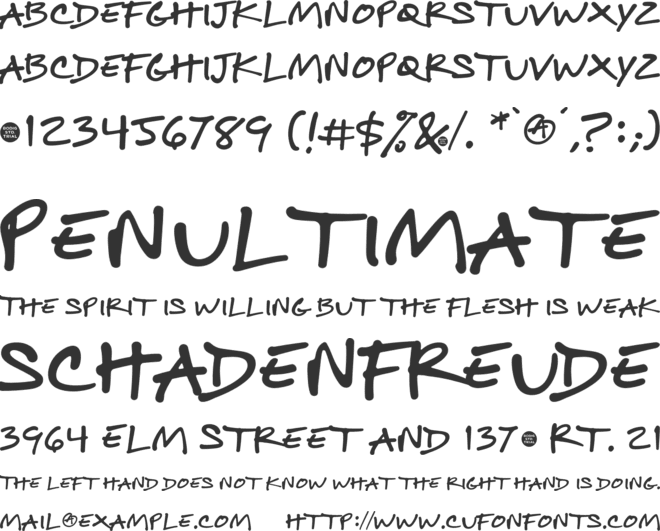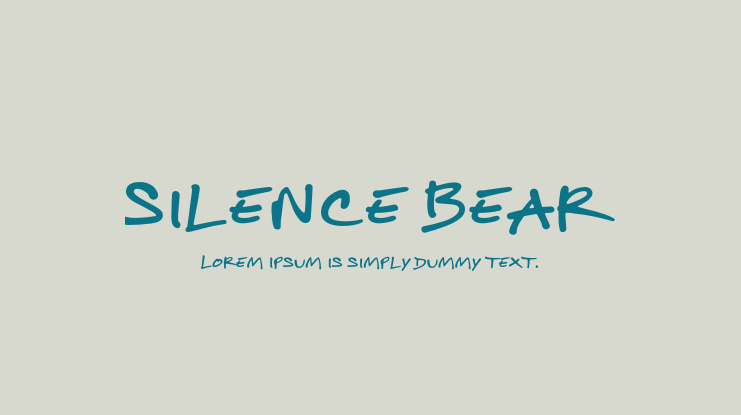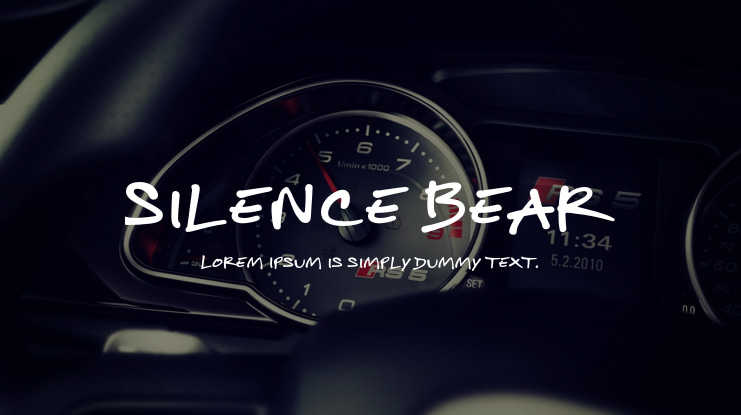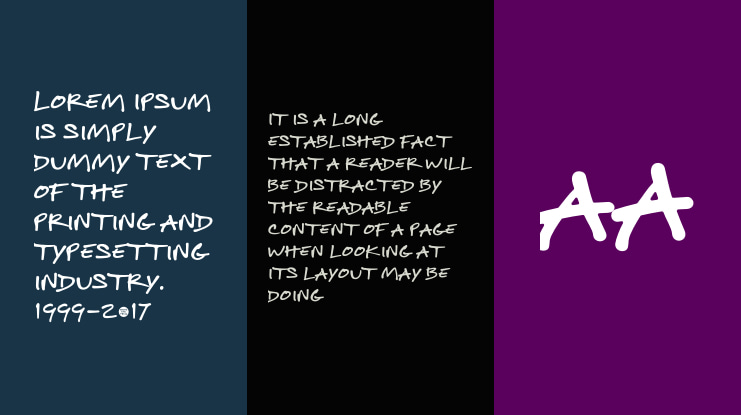
Silence Bear Font
Silence Bear typeface is a handwritten all-caps font with a fast signature style. Energetic and wild, it makes a natural mark guaranteed to leave a lasting impression on any design project. It would be especially interesting if combined with a contrasting clean font. Use this font for your designs and explore its endless possibilities.